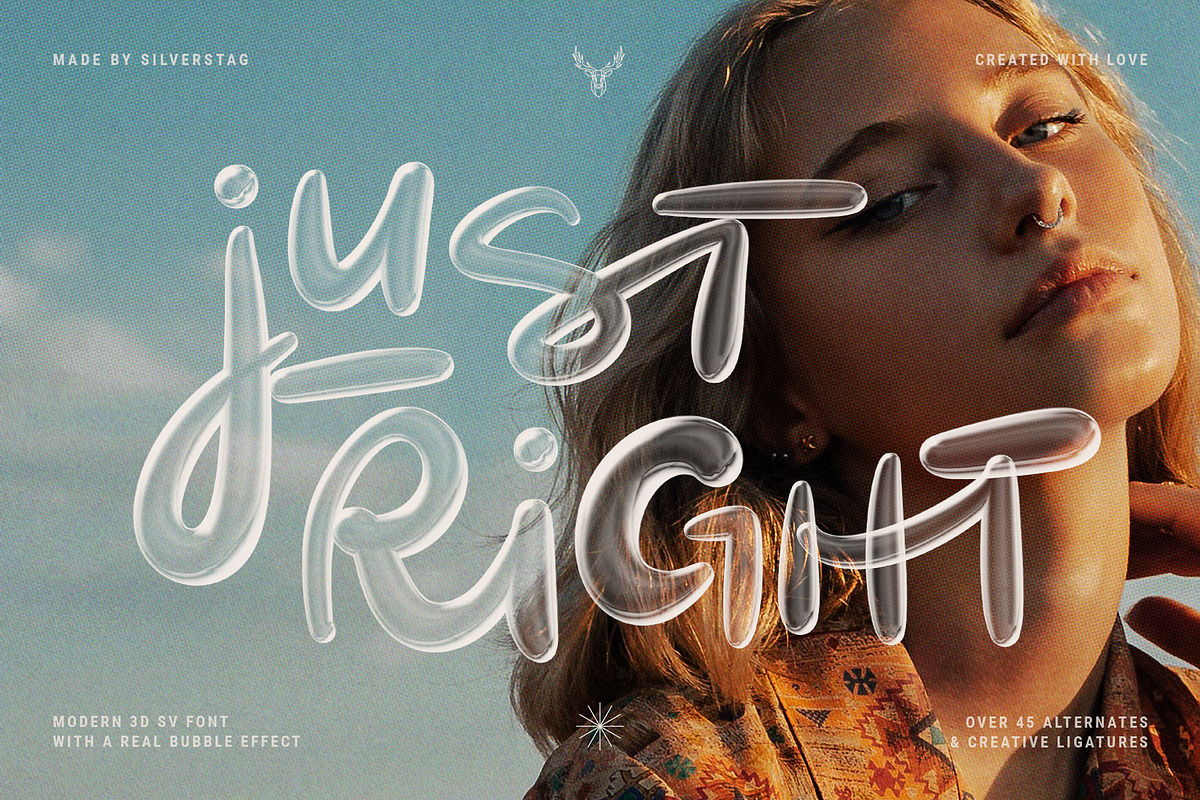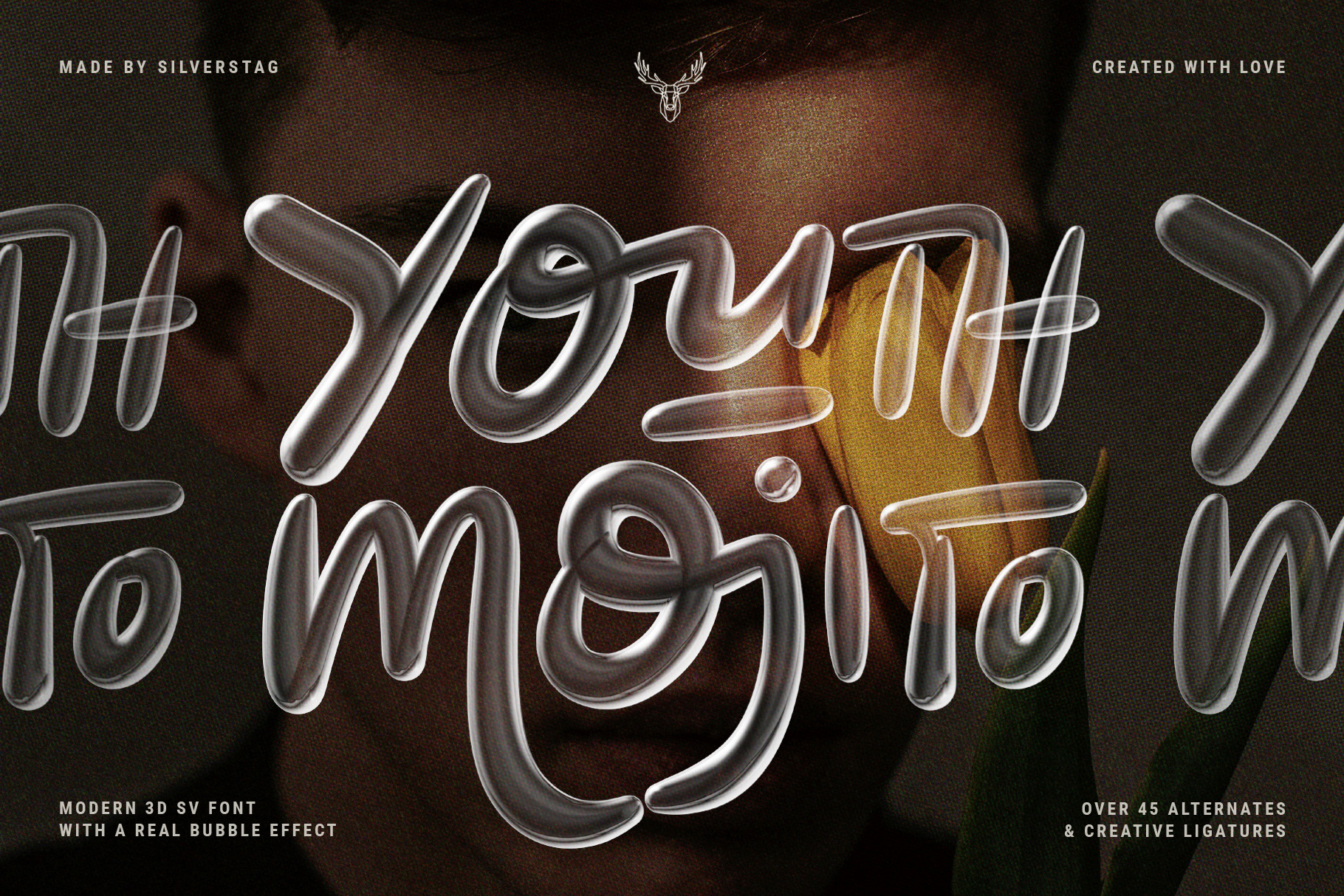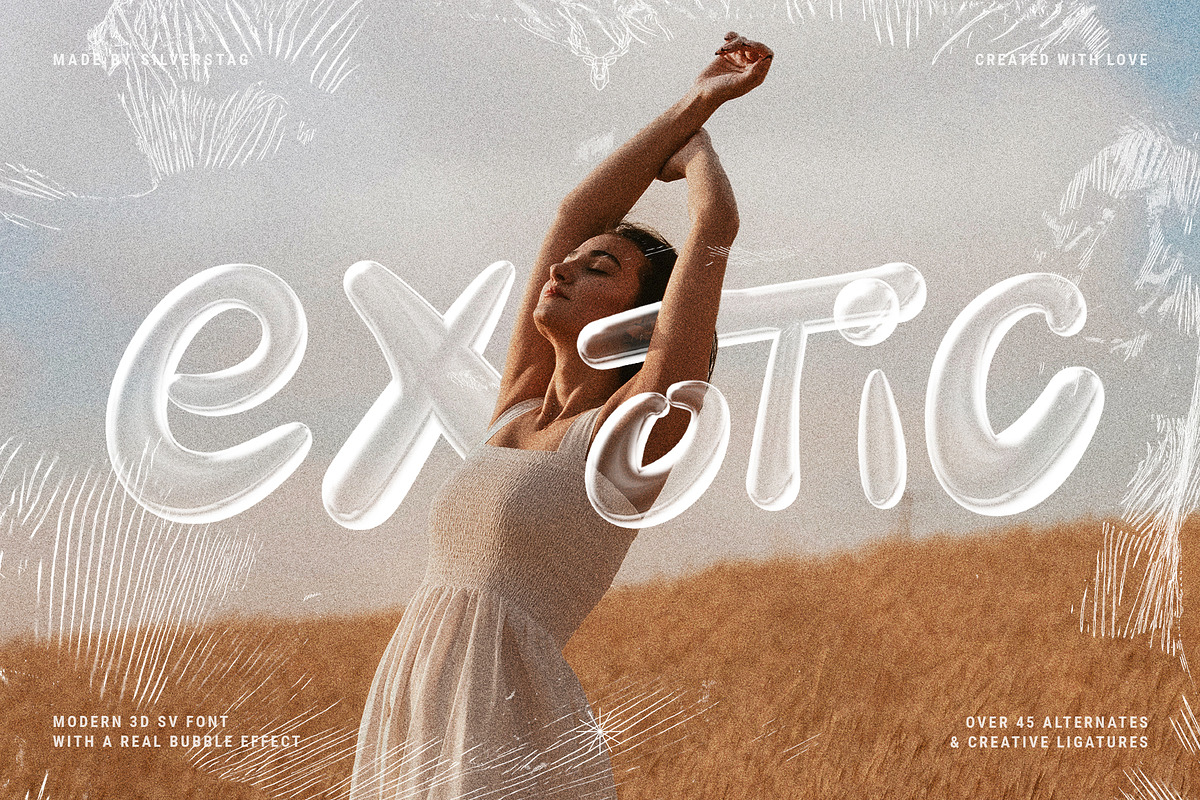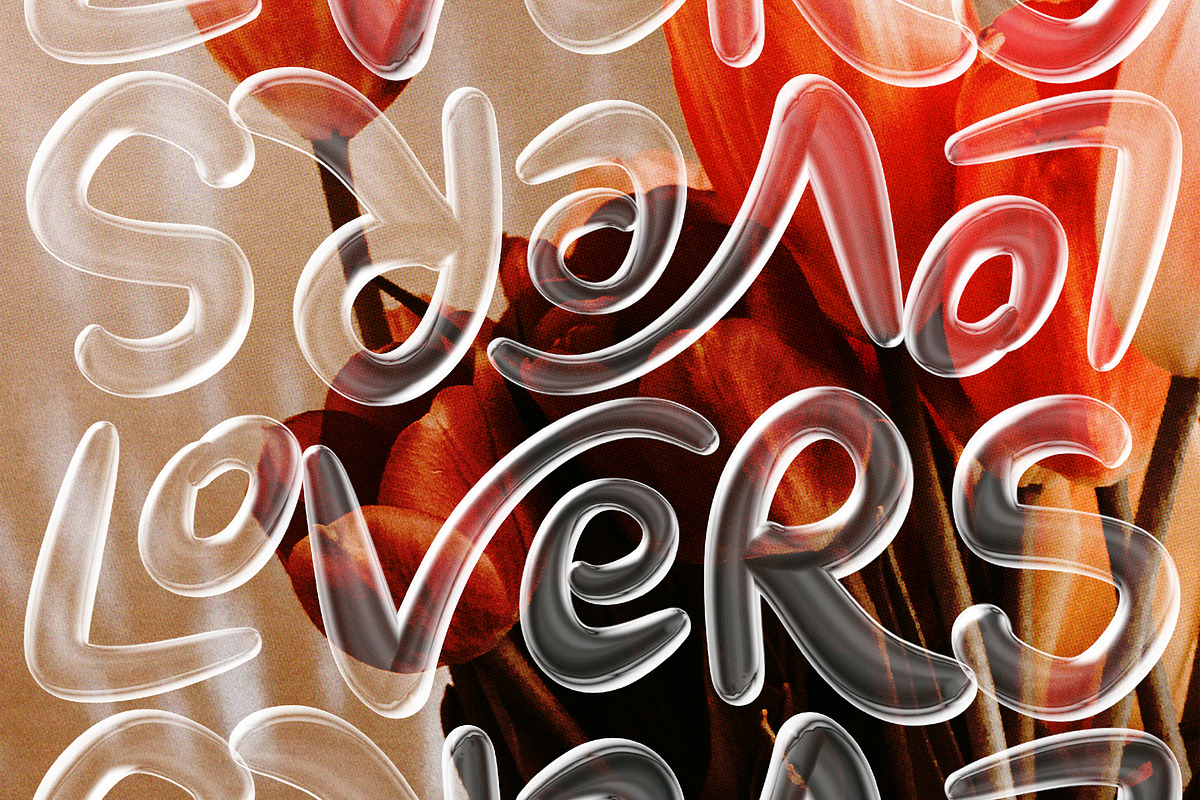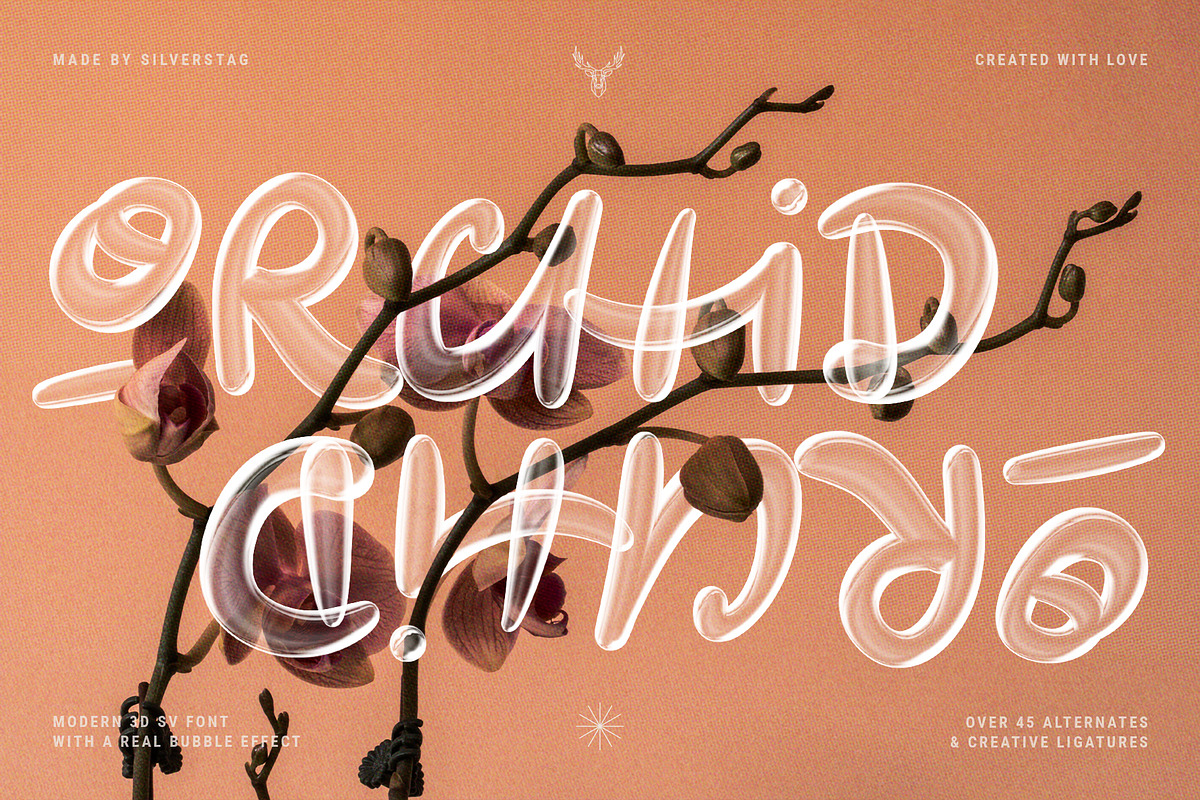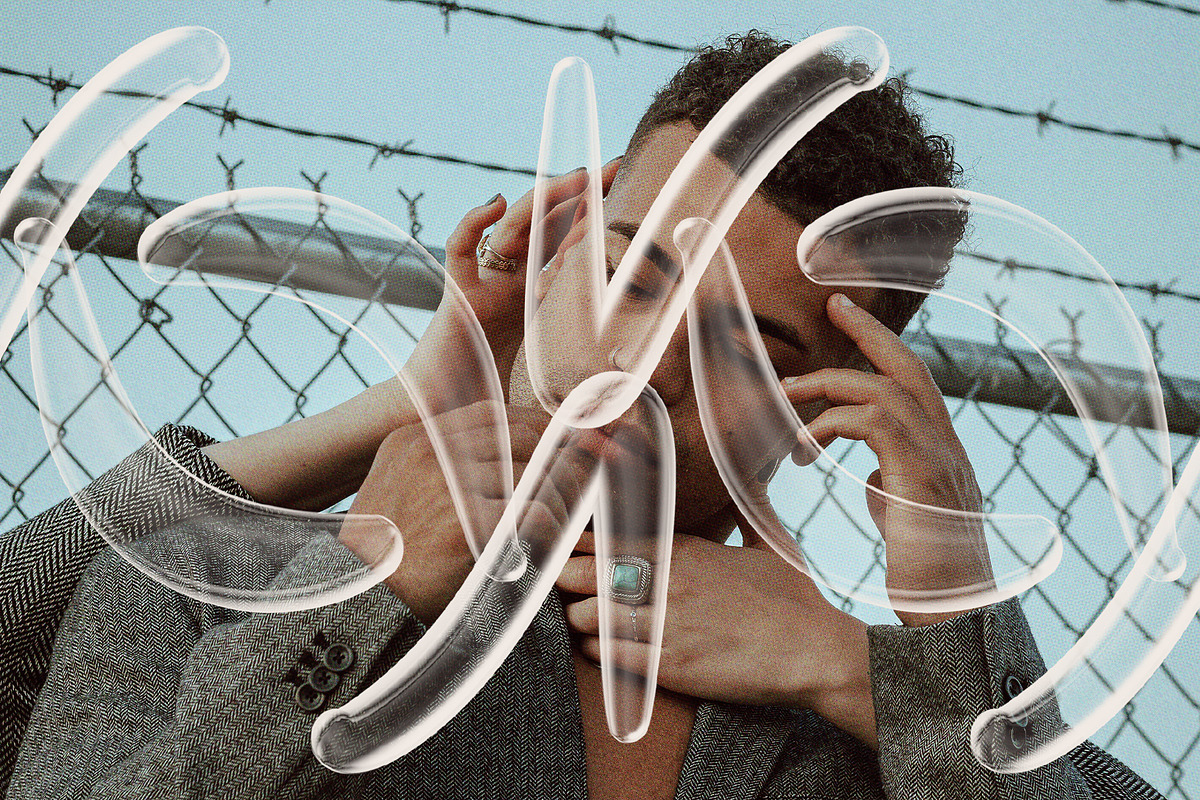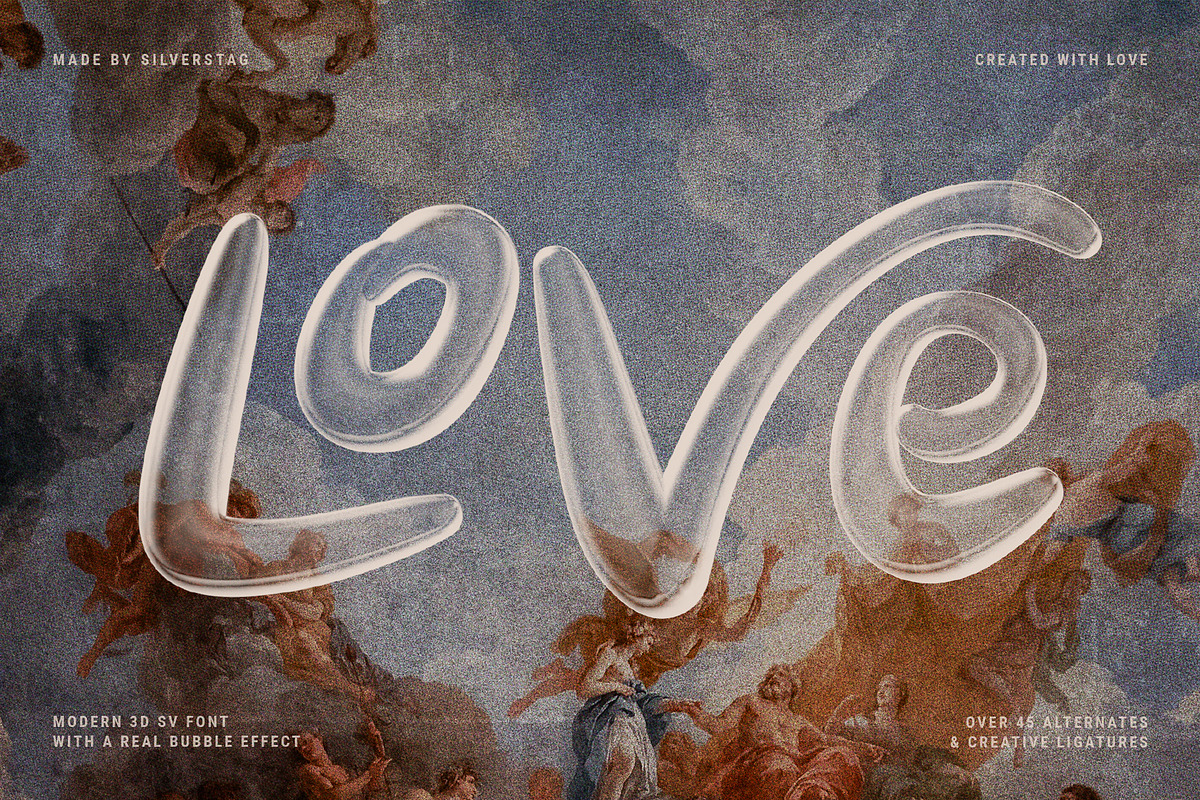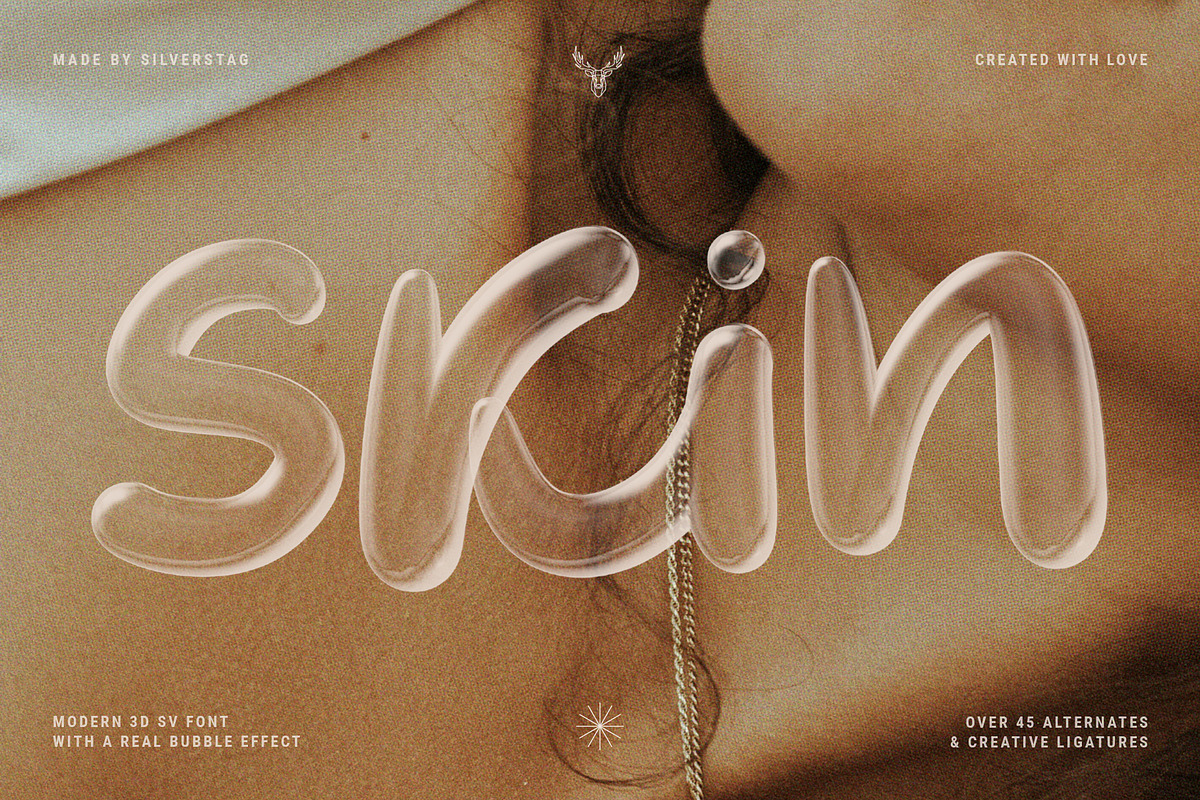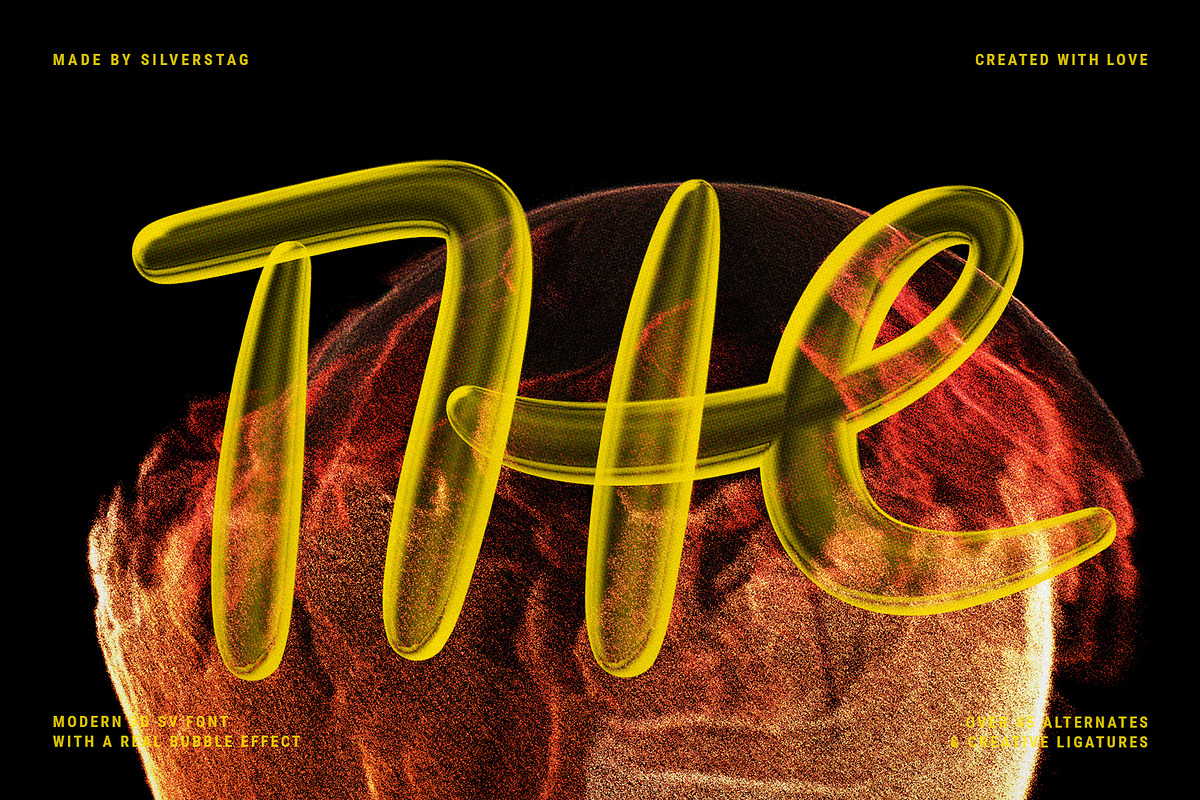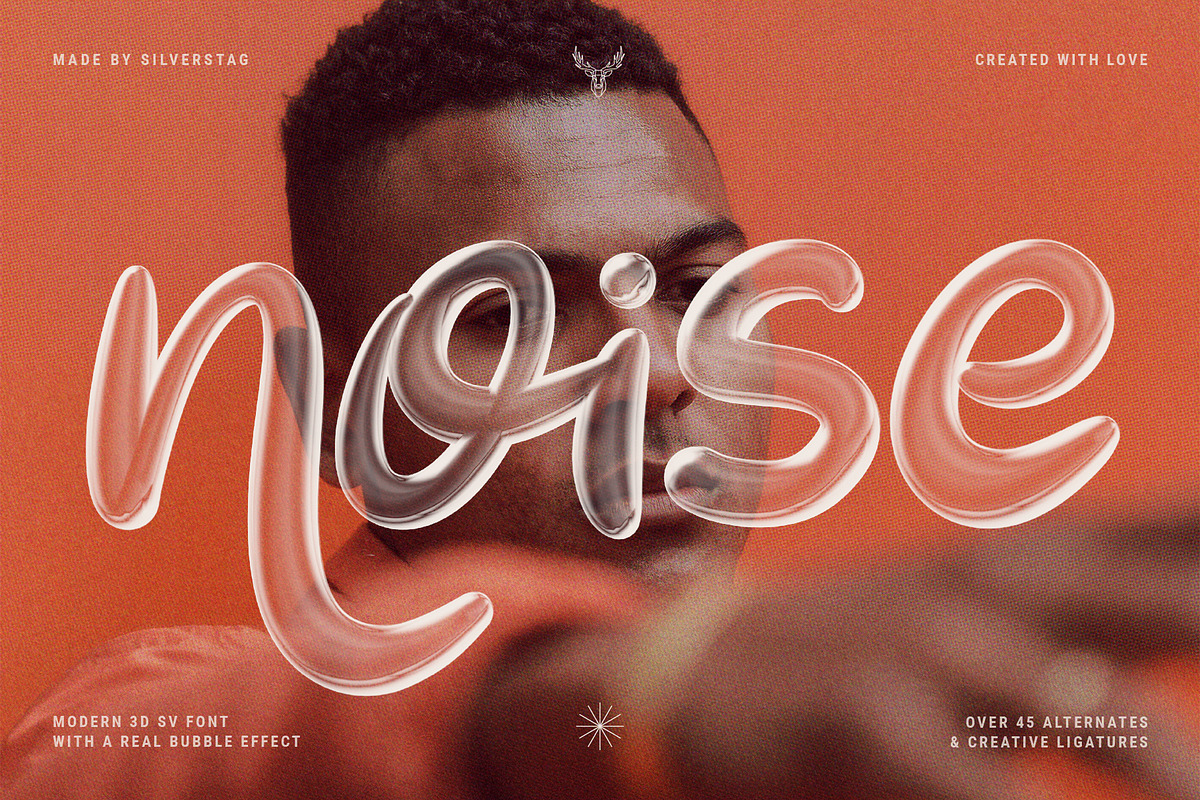
YOUTH MOJITO - A 3D Bubbly SVG Font
Are you ready for a brand new look and unique perspective in your typography? Look no more, YOUTH MOJITO is a 100% unique SVG font with a bubbly look, perfect for your modern posters, graphics, presentations, website and even your logo.
It is something I have been working on for quite some time now and I am sure you'll enjoy it's unique and playful look! The true bubble look will elevate your work and help you create some new and unique designs.
I invite you to check out the preview images, and I hope you will be immersed in my vision for this creative typeface that, I am sure, will work for all kinds of interesting projects you might be working on this year.